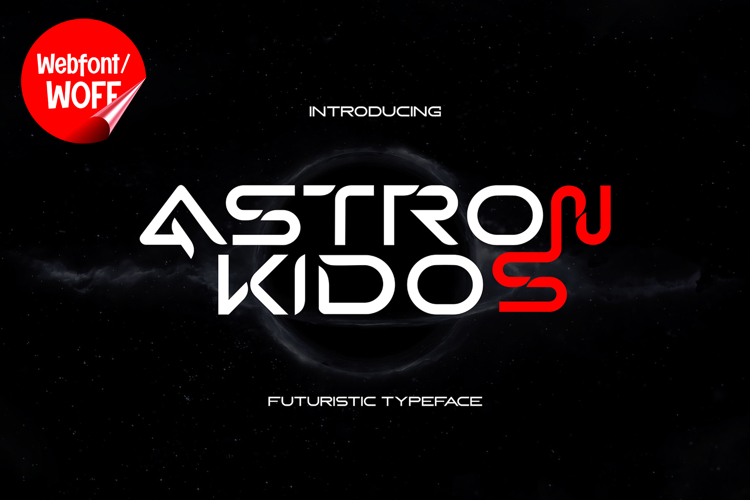
Astron Kidos | Futuristic Webfont for Modern Digital Design
Astron Kidos is a futuristic webfont designed to bring innovation, technology, and modern digital aesthetics into contemporary website design. Inspired by sci-fi visuals, advanced interfaces, and futuristic typography, this font features sleek letterforms and geometric structures that create a clean and high-tech visual identity. It is an excellent choice for projects that aim to deliver a modern, forward-thinking, and impactful typographic style.
Astron Kidos includes a complete set of uppercase characters designed with futuristic-inspired forms. The letterforms feature clean lines, sharp angles, and balanced proportions that create a sleek and modern appearance. These characteristics make it ideal for headlines, banners, hero sections, and featured content where strong visual impact and clarity are essential.
In addition to letters, the font includes numbers and punctuation, allowing flexible usage across various parts of a website. It works well for technology branding, gaming interfaces, digital campaigns, startup websites, and product showcases. Each character maintains a consistent futuristic style, ensuring a cohesive and unified visual identity throughout the layout.
With multilingual support, Astron Kidos includes a wide range of accented characters, making it suitable for international websites and global audiences. This allows content to be displayed clearly across different languages while preserving the clean and futuristic aesthetic.
The futuristic style of Astron Kidos makes it especially suitable for tech companies, esports branding, digital products, automotive projects, and creative portfolios. Its sleek and modern design adds sophistication and innovation, helping websites stand out in competitive digital environments. The geometric structure enhances the sense of precision and technological advancement.
Despite its stylized futuristic appearance, Astron Kidos is designed with readability in mind. The spacing and proportions are carefully balanced to ensure clarity, particularly in display sizes. This makes it effective for impactful headings and short content elements where both style and usability are important.
Astron Kidos is a webfont that combines futuristic aesthetics with modern web performance. Its sharp forms, clean structure, and high-tech character create a distinctive typographic presence that enhances website design. For projects that require a sleek, innovative, and visually engaging futuristic font, Astron Kidos offers a strong and versatile solution.